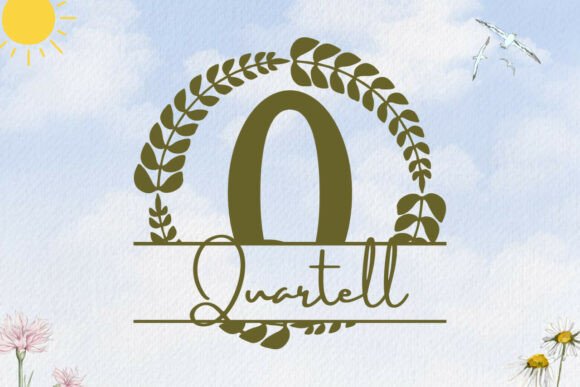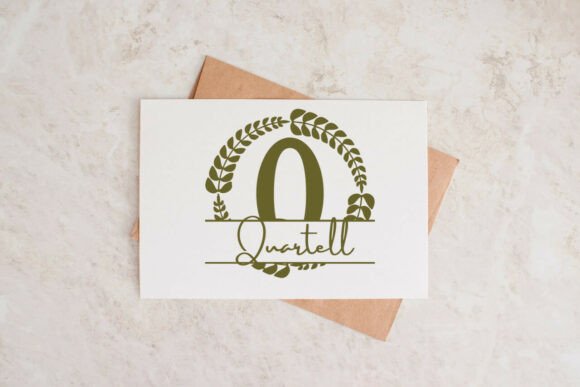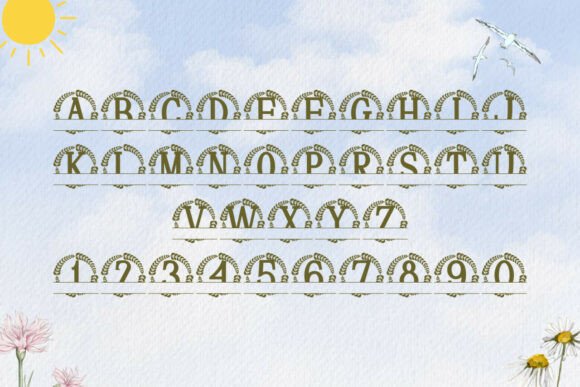
Meet Darlowe Split Monogram Font: Elevate Your Designs with Elegance
Are you looking for a font that can instantly transform any initial into a refined, name-ready emblem? Look no further than the Darlowe Split Monogram Font. This versatile font is designed to turn any initial into a stunning piece of art that’s perfect for various design projects, from wedding keepsakes to boutique packaging.
The Darlowe Split Monogram Font Advantage
The Darlowe Split Monogram Font is characterized by its calm and confident letterforms, which are precisely split horizontally to create a natural space for names, dates, or short words. This unique design feature ensures that the spacing remains even and the counters stay open, resulting in polished designs that look great in various sizes, from tiny tags to statement wall art.
The Darlowe Split Monogram Font is incredibly versatile and can be used for a wide range of design projects, including:
- Wedding keepsakes: Create beautiful wedding monograms, decorations, and favors that will make your special day even more memorable.
- Family name signs: Design stunning family name signs that add a personal touch to any room.
- Door hangers: Welcome guests with custom door hangers that feature your name or a special message.
- Tumblers: Personalize tumblers with the Darlowe Split Monogram Font for a unique and functional gift.
- Ornaments: Create beautiful ornaments that can be used to decorate your home or given as gifts.
- Menus: Elevate your restaurant or cafe’s menu with custom typography that showcases your brand’s personality.
- Boutique packaging: Add a touch of elegance to your packaging with custom monograms or typography.
Pairing Options
The Darlowe Split Monogram Font pairs beautifully with simple sans or light script fonts, ensuring that every layout remains readable and premium. This versatility allows you to experiment with different font combinations to find the perfect look for your design.
Where the Darlowe Split Monogram Font Shines
This font truly shines when used to create personalized designs. Here are a few ideas to get you started:
- Set a single hero initial and place the family name inside the split for instant personalization.
- Try a couple of names for engagement gifts or venue names for signage.
- Use short words like Home, Welcome, and Love for seasonal décor.
Scalability and Compatibility
Tips for Using the Darlowe Split Monogram Font
To get the most out of the Darlowe Split Monogram Font, here are a few tips:
- Experiment with different font sizes and colors to find the perfect combination for your design.
- Use the font’s built-in spacing and kerning features to ensure that your text looks professional and polished.
- Don’t be afraid to get creative and try out new and unique design ideas.
The Darlowe Split Monogram Font is a versatile and elegant font that’s perfect for designers and crafters looking to elevate their designs. With its unique split monogram design, calm and confident letterforms, and scalability features, this font is sure to become a staple in your design toolkit. Whether you’re creating wedding keepsakes, family name signs, or boutique packaging, the Darlowe Split Monogram Font is the perfect choice.